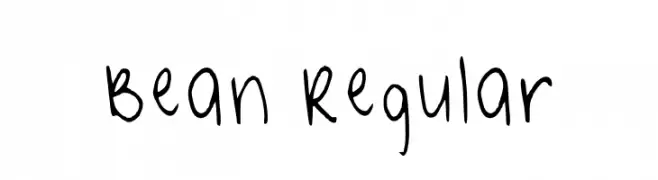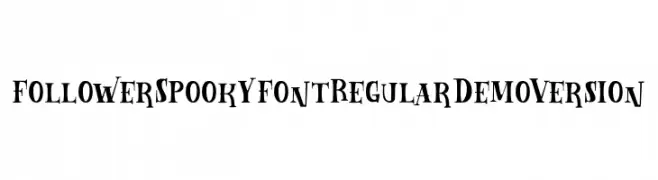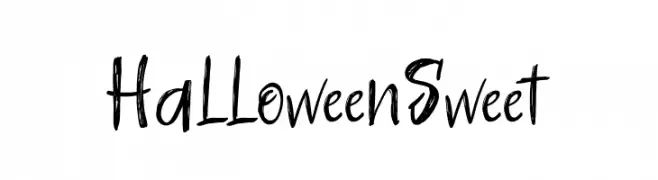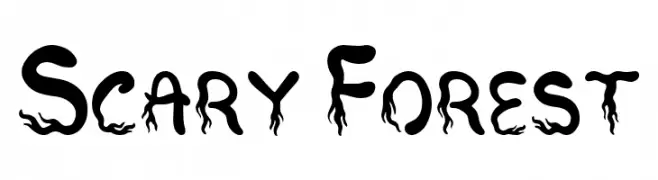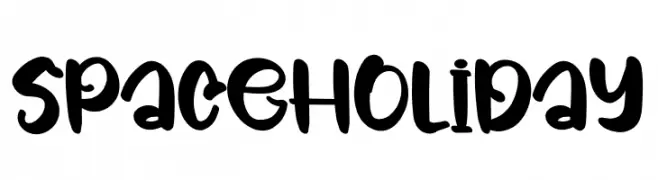
A festive, elegant script font with intricate swirls and loops.
A playful, snowflake-accented font with bold, rounded characters.
A playful, hand-drawn font with a spooky, whimsical style.
A playful, bold, and whimsical hand-drawn font with a festive feel.
A spooky, jagged font ideal for Halloween and horror themes.
A bold, eerie font with vine-like extensions, perfect for spooky themes.
A jagged, eerie font ideal for horror themes.
A playful, handwritten font with a casual and informal style.
A playful, cursive font with a romantic, handwritten style.
A bold, hand-painted style font with a playful and casual vibe.